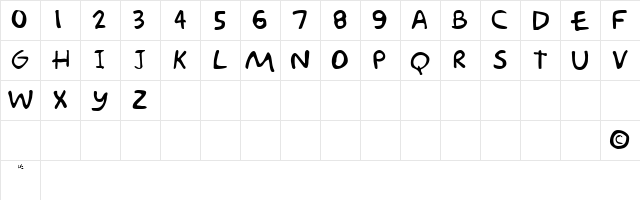
Groening Plain Font Preview
Groening Plain
Groening Plain Font Details
Design Context for Groening Typeface
Groening is a composed and adaptable typeface that performs quietly and consistently across a wide range of design contexts.